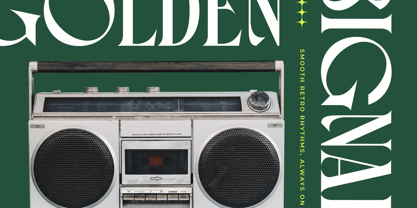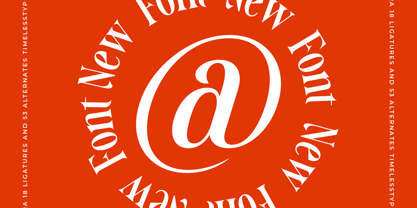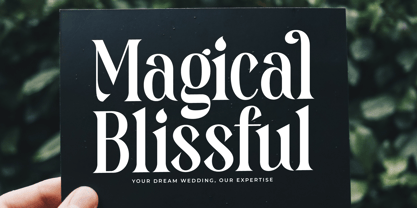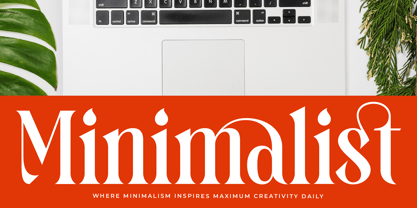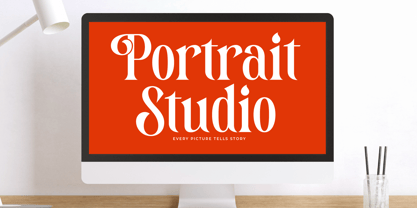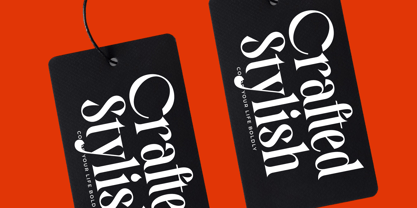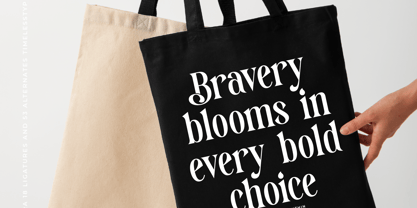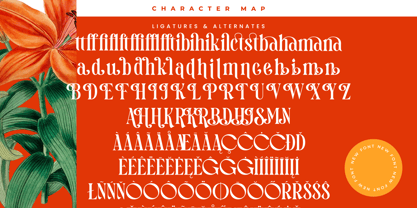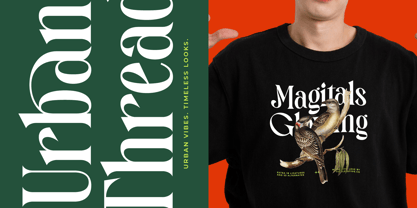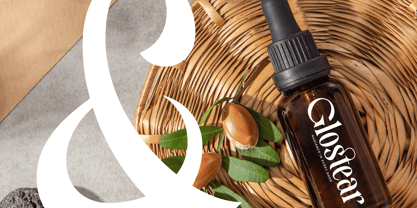
Magitals Glowing
Die Schriftfamilie Magitals Glowing wurde von Heru Utama Putra entworfen und von Timelesstype Studio veröffentlicht. Magitals Glowing enthält 2 Stile und Familienpaketoptionen.
Magitals Glowing - New Modern Serif Font , from Timelesstype, Suitable for any projects such as: logos, branding projects, homeware designs, product packaging, mugs, quotes, posters, shopping bags, t-shirts, book covers, name card, invitation cards, greeting cards, label, photography, watermark, special events, and all your other luxury and beautiful projects that need a Luxury Serif taste.